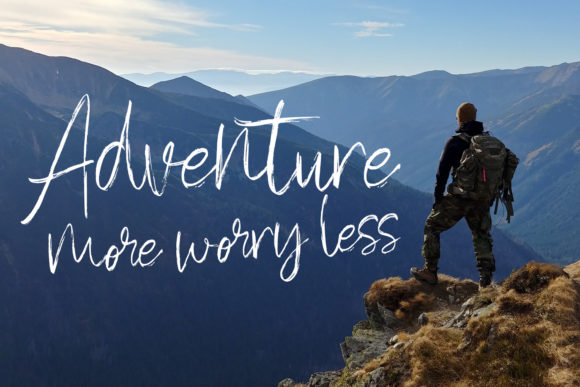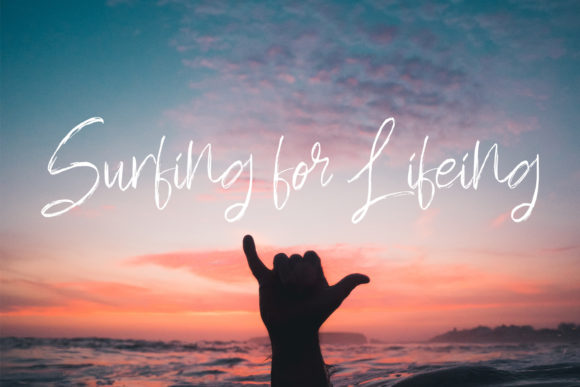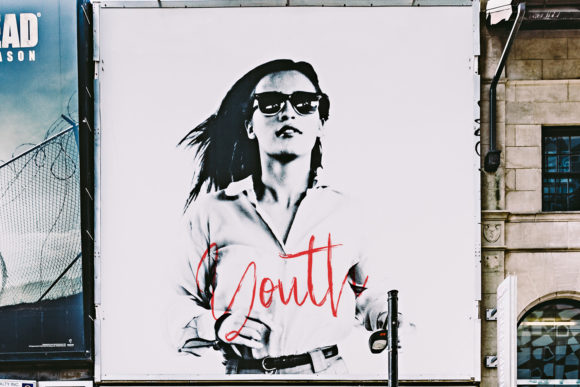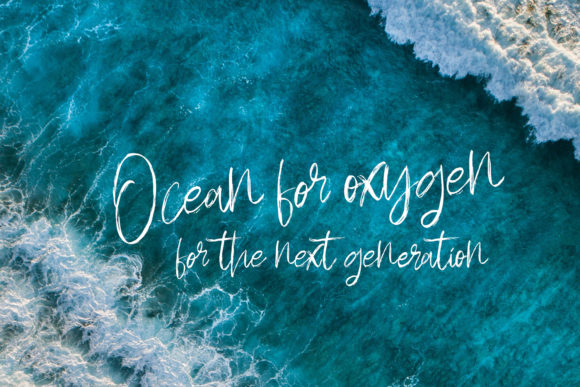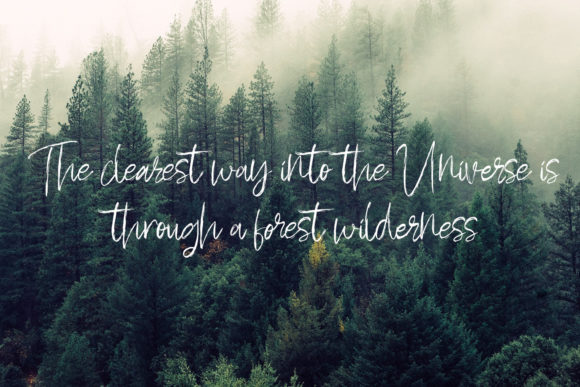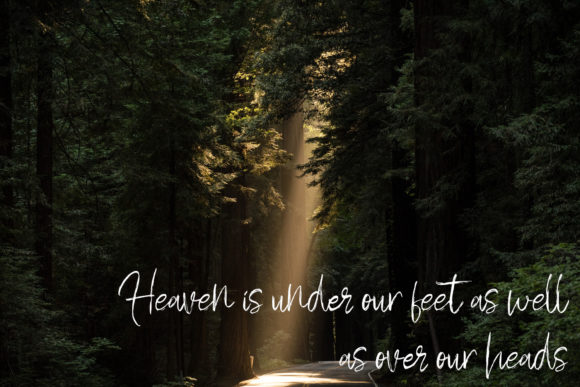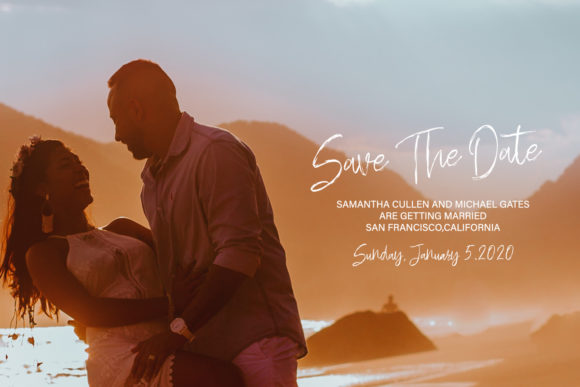
Hakodate Font
About Hakodate Font
Hakodate is a stunning handwritten font with a light and simple charm. Fall in love with its unique style, and turn any design idea into a true standout!